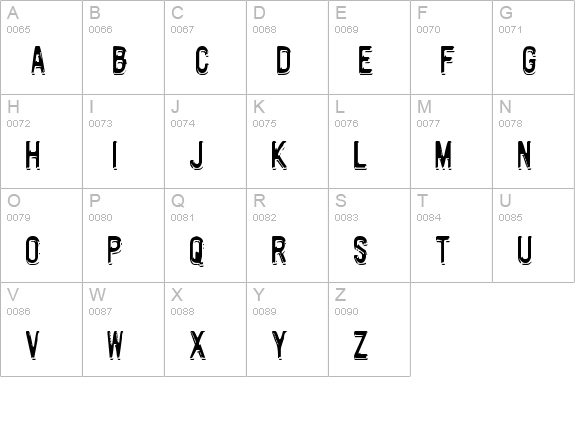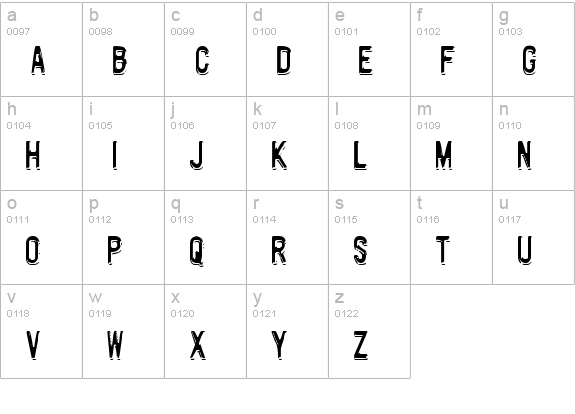
Motorway Font Details
Motorway font is a sleek and modern typeface that embodies speed and efficiency. Its clean lines and bold letterforms make it perfect for conveying a sense of urgency and forward motion. Whether you're designing a logo, poster, or website, Motorway font will give your project a professional and contemporary edge. What's even better is that Motorway font is completely free to download at FontsMarket.com. This means you can easily access this versatile typeface for any personal or commercial project without having to worry about any licensing fees. So why wait? Add Motorway font to your design arsenal today and watch your creations rev up to the next level.